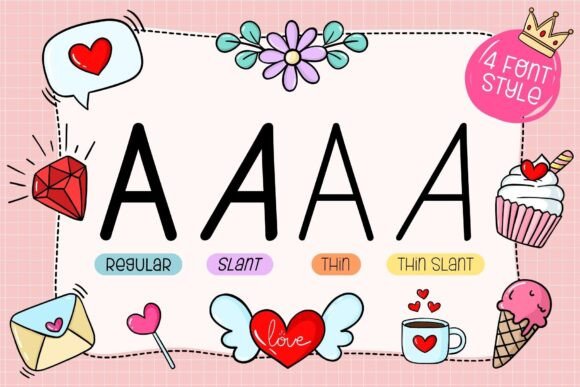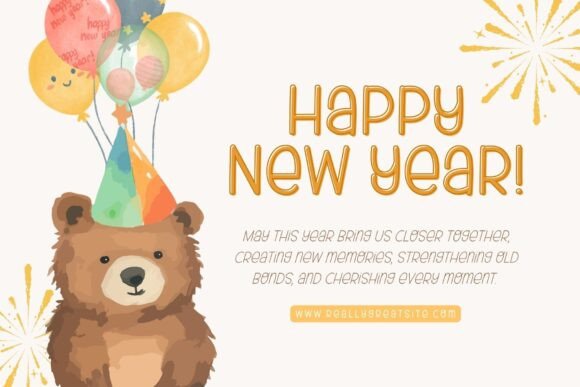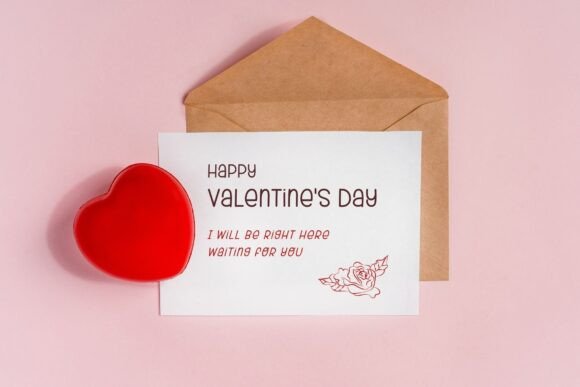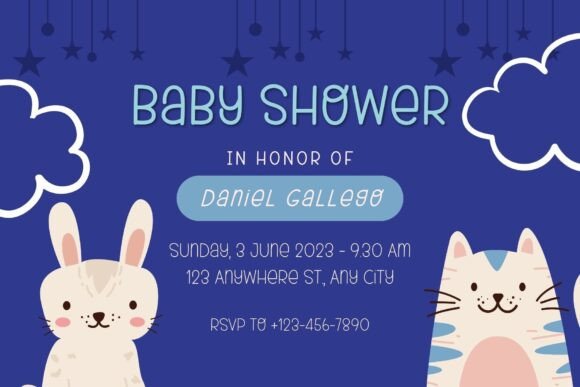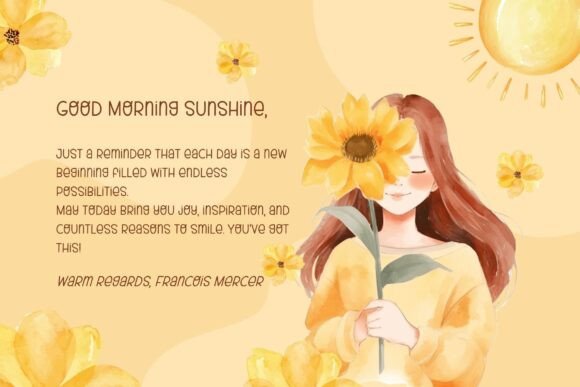
Introduction to Fox Admire Font
Fox Admire Font is a fun and delightful typeface that features 4 versatile styles: – Regular: A clean and playful default style.
– Slant: A tilted variation for a lively and dynamic vibe – Thin: A light and elegant option for a minimal look.
Key Features of Fox Admire Font
Why Choose Fox Admire Font?
Fox Admire Font offers exceptional quality and versatility, making it a valuable addition to your design toolkit. Whether you’re creating for personal projects or commercial use, Fox Admire Font delivers professional results.